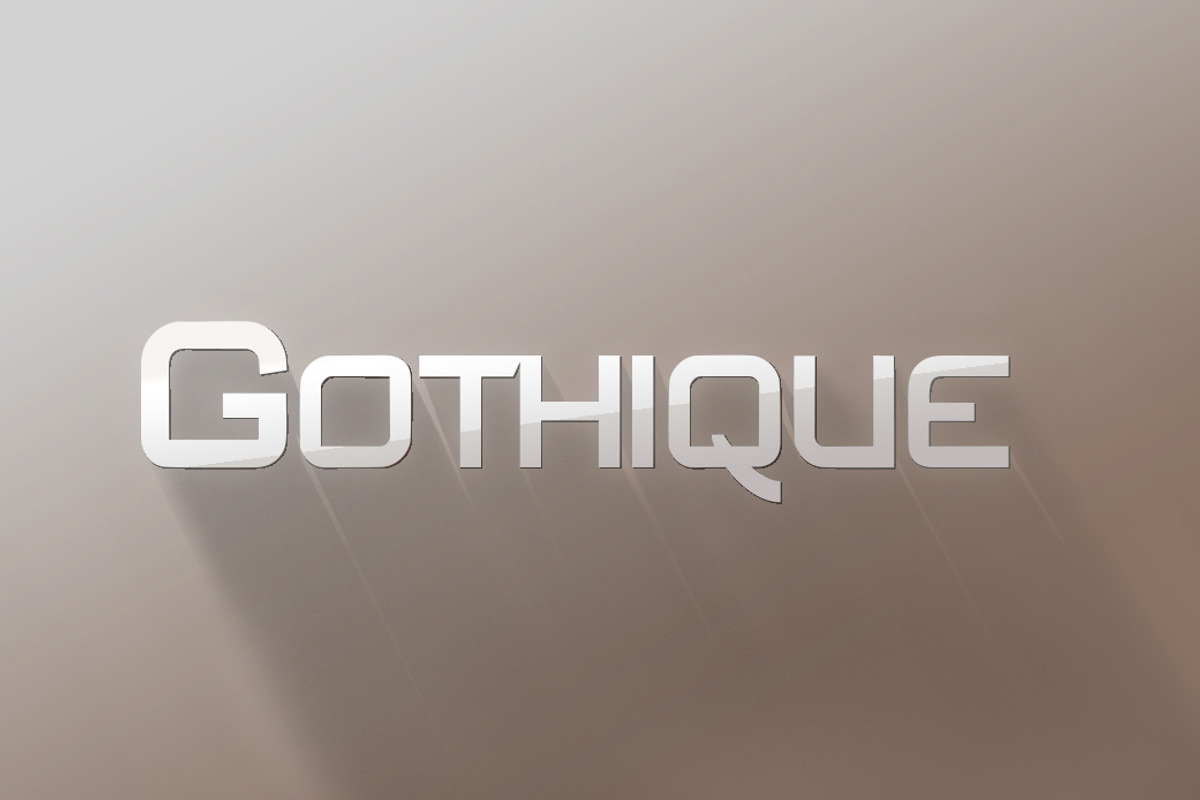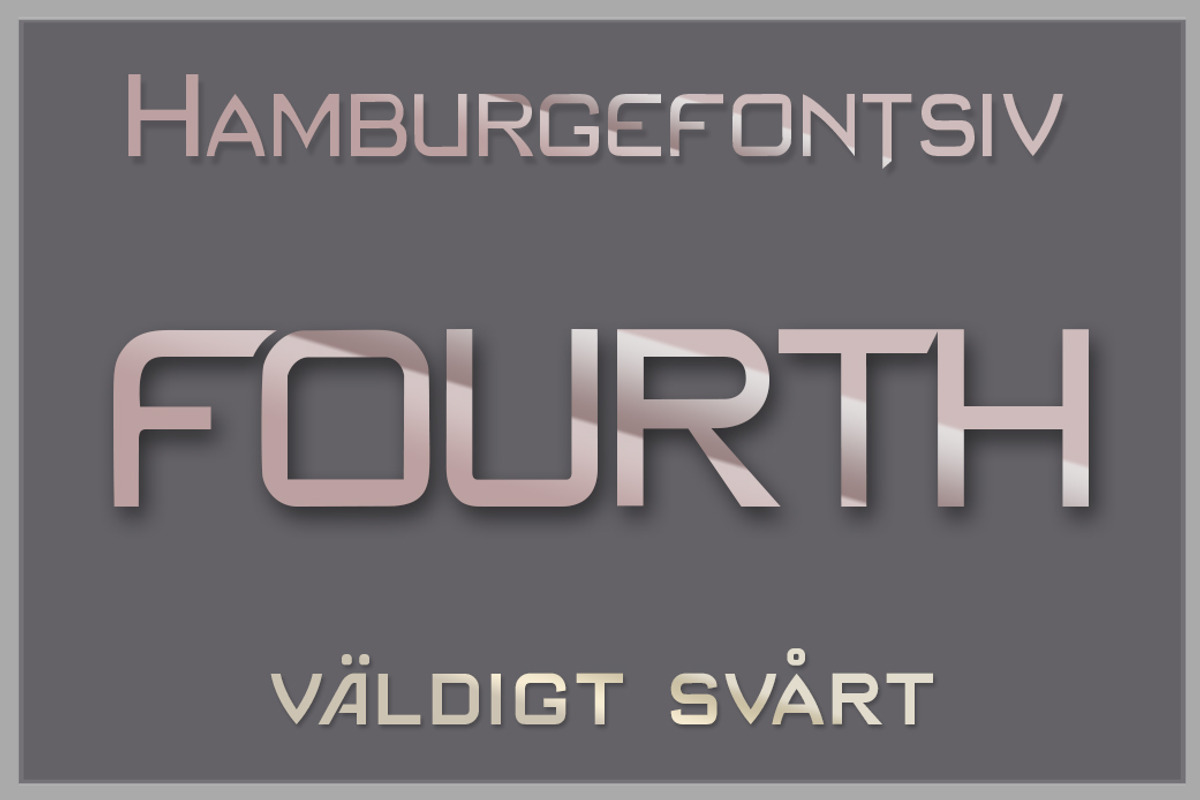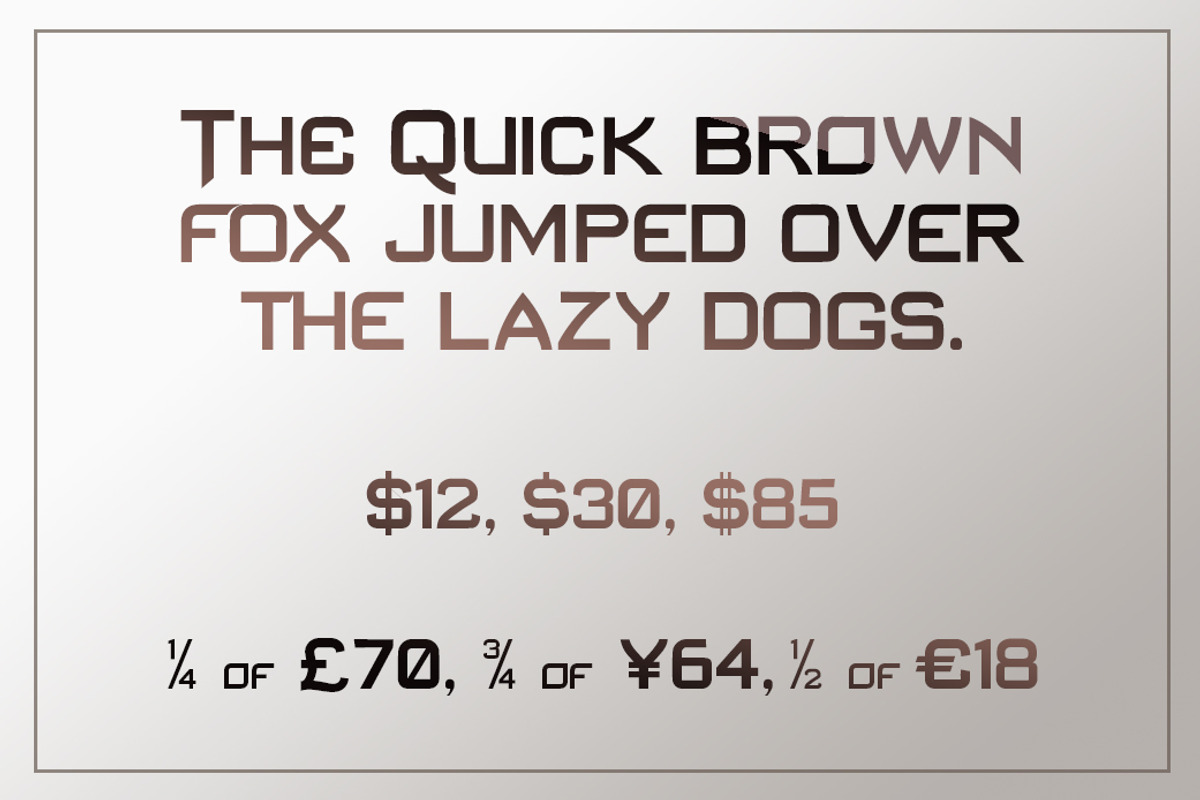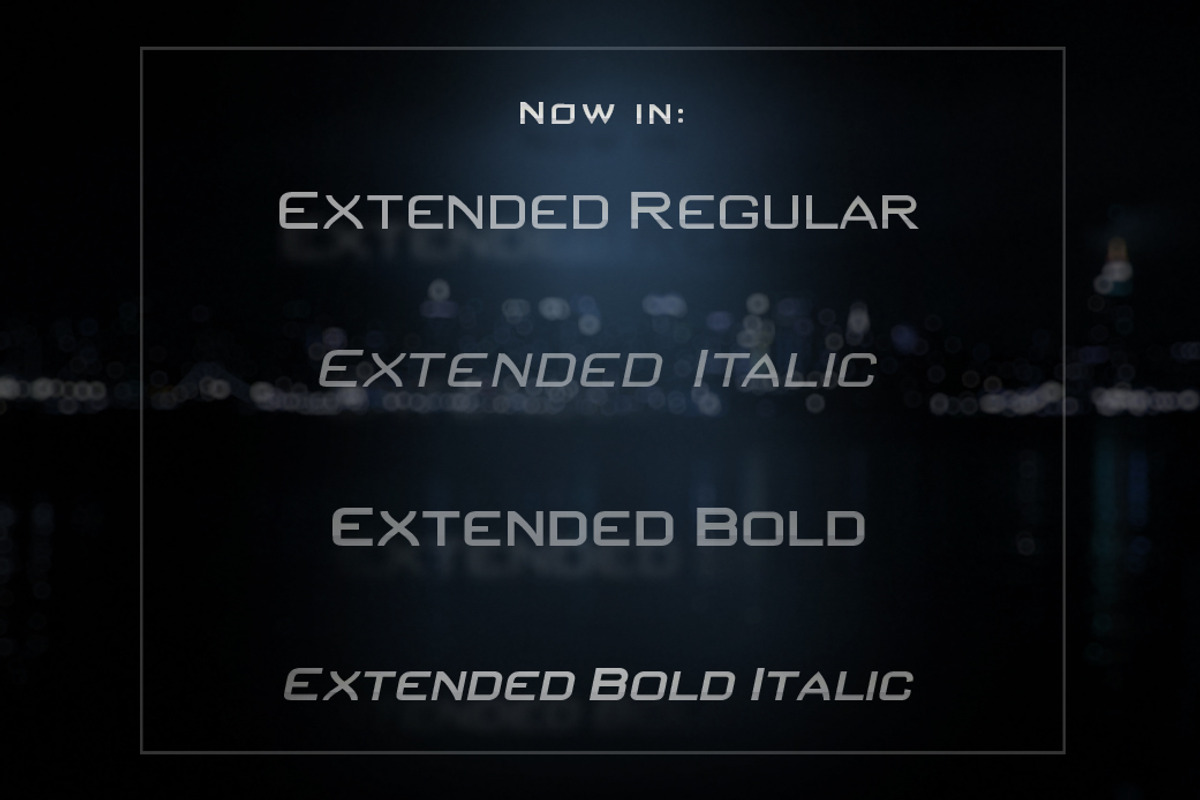
Gothique Modern Sans Serif Font
Gothique Modern Sans Serif Font by Violet on CreativeMarket is a font selected for branding, posters, packaging, typography.
- There are some ligatures (as shown in the word "FOURTH", above), characters with diacritical marks, & alternate characters accessible via th
- Gothique Extended Regular
- Gothique Extended Italic
- Gothique Extended Bold
- Gothique Extended Bold Italic
- Gothique Regular
- Gothique Bold
Gothique Modern Sans Serif Font by Violet on CreativeMarket fits naturally into Branding, posters, packaging, typography.